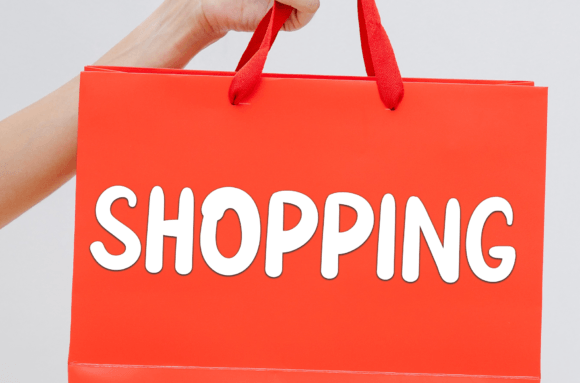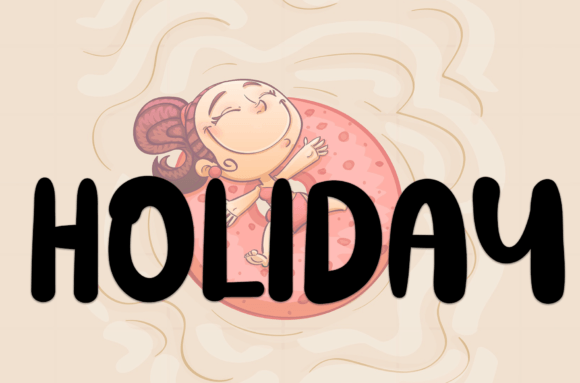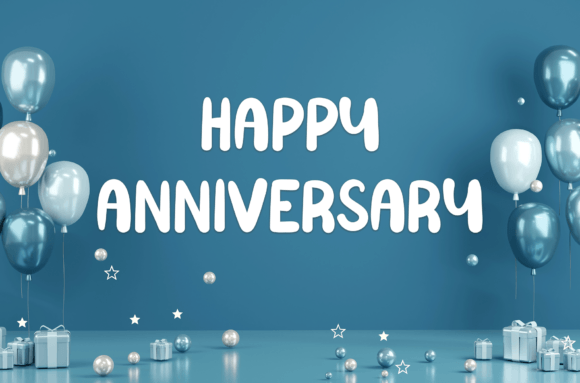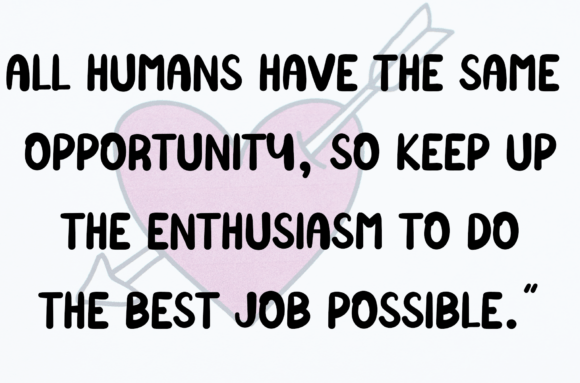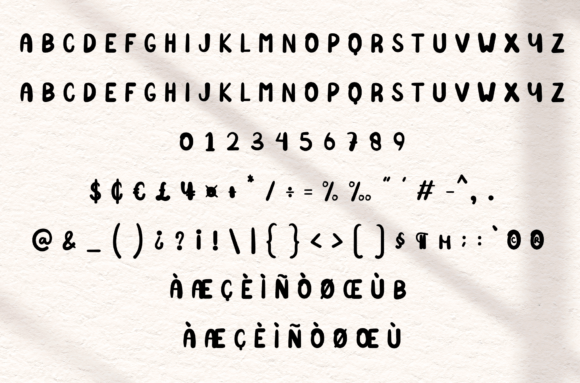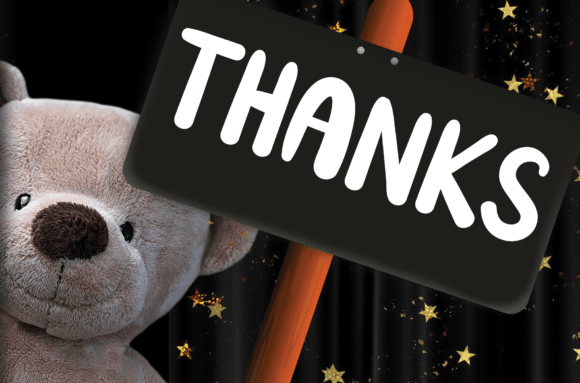
Introducing Bold Link Font: The Cool and Casual Handwritten Display Font You Need
Are you tired of using the same old fonts in your creative projects? Do you want to add a touch of personality and whimsy to your designs? Look no further than Bold Link Font, a cool and casual handwritten display font that’s sure to elevate your work. In this article, we’ll take a closer look at Bold Link Font, its features, and how you can use it to take your designs to the next level.
What is Bold Link Font?
Bold Link Font is a modern, handwritten display font that’s perfect for designers and crafters looking for a unique and eye-catching way to add text to their projects. With its bold and casual style, this font is ideal for creating eye-catching headlines, titles, and captions that are sure to grab attention.
One of the standout features of Bold Link Font is its hand-drawn, organic feel. Unlike traditional fonts, which can often look stiff and formal, Bold Link Font has a relaxed, laid-back vibe that’s perfect for creative projects. Whether you’re designing a logo, creating a social media graphic, or crafting a flyer, this font is sure to add a touch of personality to your work.
Key Features of Bold Link Font
So, what makes Bold Link Font so special? Here are just a few of its key features:
- Handwritten style: Bold Link Font has a unique, hand-drawn feel that’s perfect for adding a personal touch to your designs.
- Bold and casual: This font is perfect for creating eye-catching headlines and titles that are sure to grab attention.
- Modern and fresh: With its clean lines and simple shapes, Bold Link Font is a modern and fresh take on traditional handwritten fonts.
- Easy to read: Despite its bold style, Bold Link Font is surprisingly easy to read, making it perfect for use in a variety of creative projects.
How to Use Bold Link Font in Your Creative Projects
So, how can you use Bold Link Font in your creative projects? Here are just a few ideas to get you started:
- Logos and branding: Use Bold Link Font to create a unique and eye-catching logo that’s sure to stand out.
- Social media graphics: Add a touch of personality to your social media graphics with Bold Link Font.
- Flyers and brochures: Use Bold Link Font to create eye-catching headlines and titles that are sure to grab attention.
- Web design: Add a touch of whimsy to your website with Bold Link Font, perfect for use in headings and titles.
Tips for Getting the Most Out of Bold Link Font
Here are just a few tips for getting the most out of Bold Link Font:
- Experiment with different colors: Bold Link Font looks great in a variety of colors, so don’t be afraid to experiment and find the perfect hue for your project.
- Pair with other fonts: Bold Link Font pairs well with a variety of other fonts, so try combining it with other fonts to create a unique and eye-catching look.
- Use it sparingly: While Bold Link Font is perfect for headlines and titles, it can be overwhelming if used too much. Use it sparingly to create a balanced and visually appealing design.
In conclusion, Bold Link Font is a cool and casual handwritten display font that’s perfect for designers and crafters looking to add a touch of personality to their creative projects. With its bold and casual style, this font is ideal for creating eye-catching headlines, titles, and captions that are sure to grab attention. Whether you’re designing a logo, creating a social media graphic, or crafting a flyer, Bold Link Font is sure to elevate your work and help you achieve your design goals.